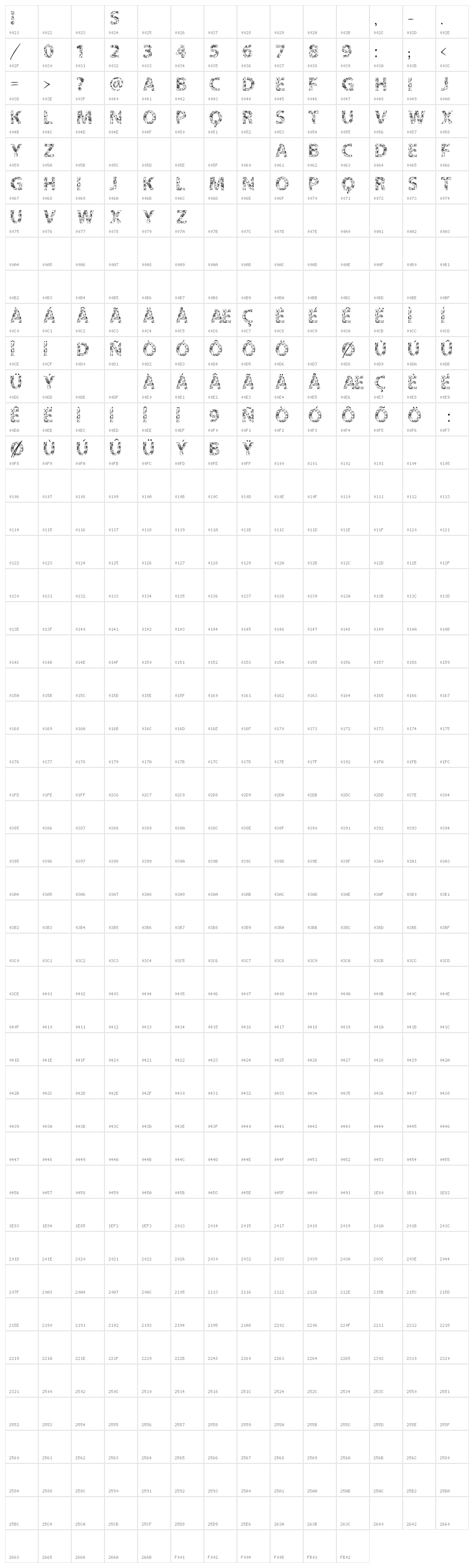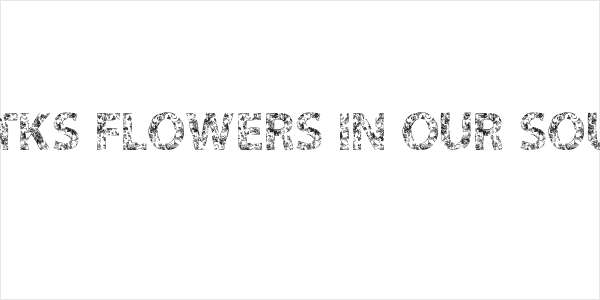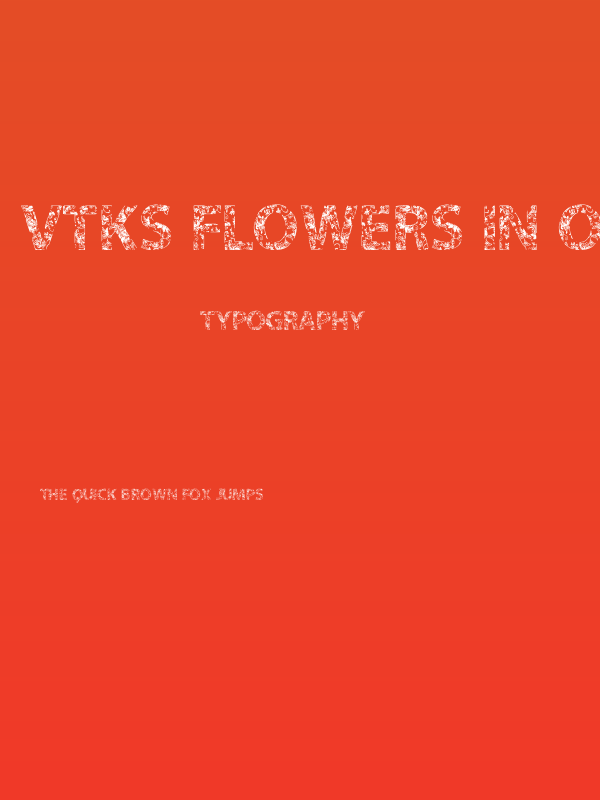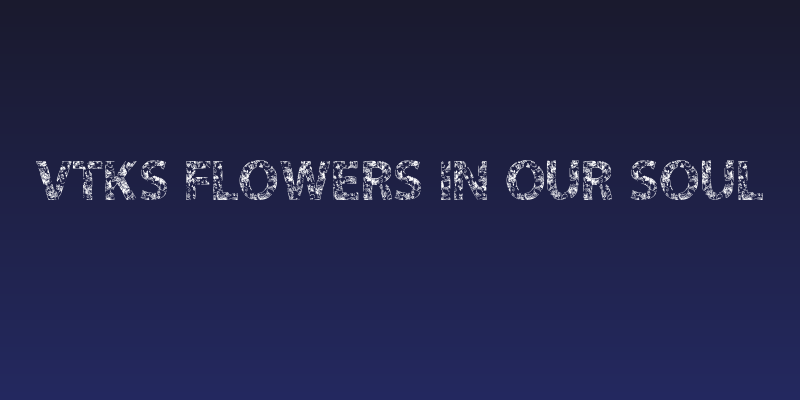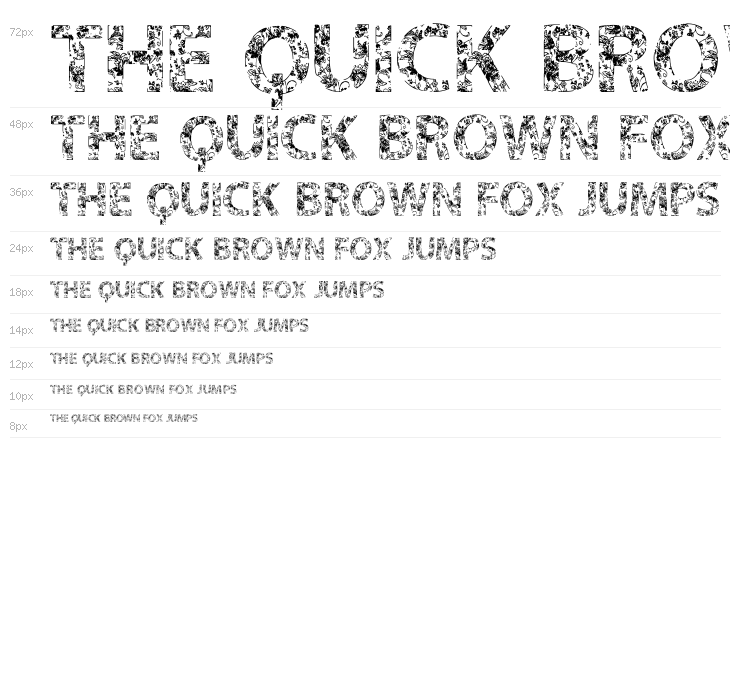
VTKS FLOWERS IN OUR SOUL Font
VTKS FLOWERS IN OUR SOUL Description
This font features a decorative style with intricate floral patterns embedded within each character. The uppercase and lowercase letters, as well as numbers and special characters, are adorned with detailed floral motifs, creating a unique and artistic appearance. The design is bold and eye-catching, making it suitable for projects that require a touch of elegance and creativity. The floral elements are consistent across all characters, providing a cohesive look. This font is ideal for artistic and decorative purposes, where a strong visual impact is desired.